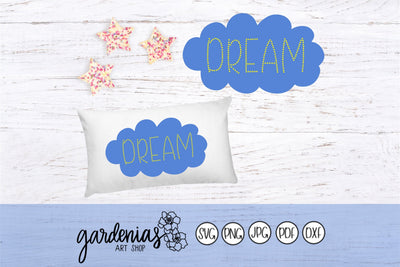
Cloud with Dream in Star Font
Cloud with Dream in Star Font Design
Adorable (yet simple and easy to weed) design for the baby nursery - great for a sky/star/cloud themed baby room!